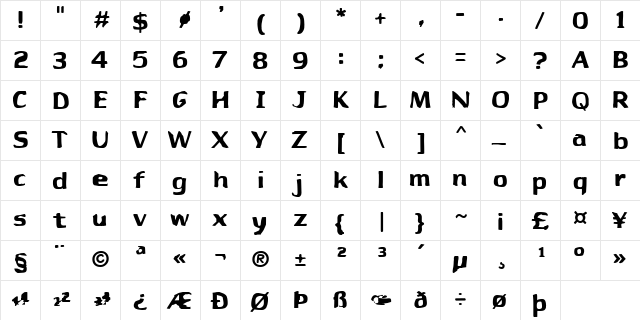
| Style | ylon 27 |
| Foundry | Yankosoft Typography |
| Designer | Yankosoft Corporation |
Design Context for bylon 27 Typeface
bylon 27 offers clean, dependable letterforms without strong stylistic allegiance, making it a practical choice for designers who need flexibility.